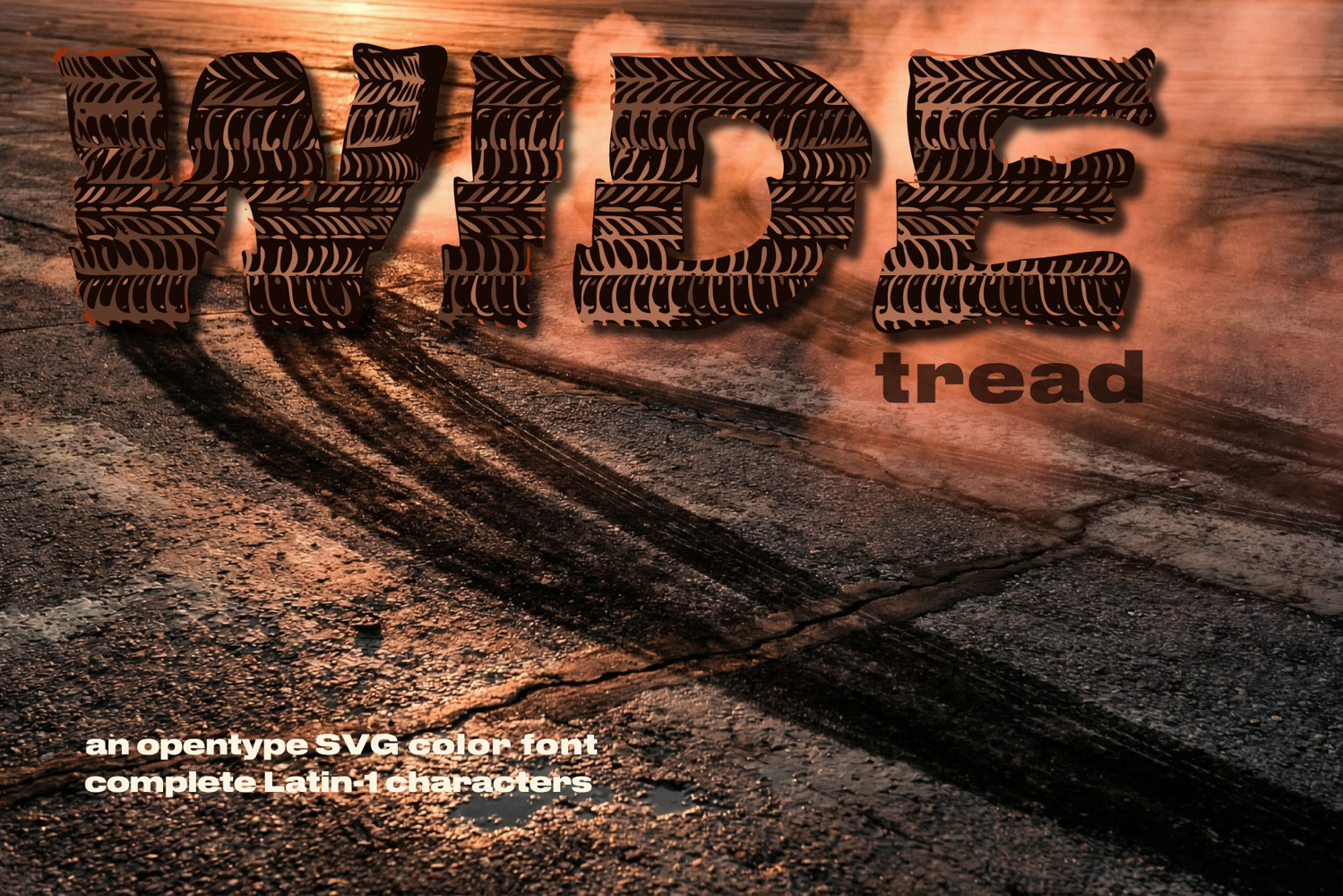
WideTread. Opentype SVG color font
WideTread –an opentype SVG color font. Modern display colorful grotesque sans-serif font.
By creating WideTread colorful font I was inspired by trending direction in graphic design - glitch style.
It’s a stunning geometric display colorful font, perfect for completely contemporary designs that need a color block appeal. This gorgeous font family comes in five OTF, TTF, WOFF2, WOFF, SVG file types, making this color font versatile enough to suit all your design needs. It works best for logotypes, signage and advertising, modern typography posters and design t-shirt, greeting card and web, and other